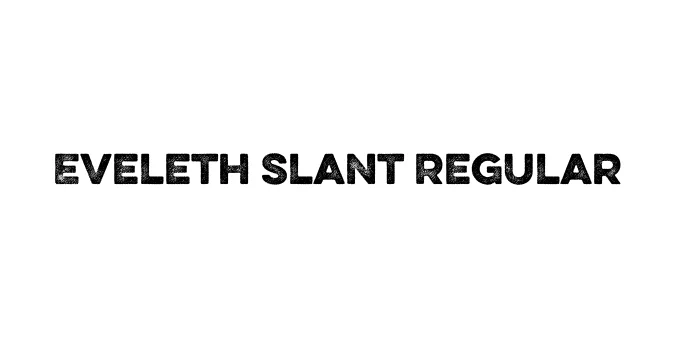
Eveleth Slant Regular
Designed by Yellow Design Studio
Eveleth Slant Regular is a premium, high-resolution letterpress font family that captures the authentic texture and grit of traditional wood-block printing. Designed by Ryan Martinson, this typeface features incredible detail and a realistic distressed appearance that sets it apart from standard digital fonts. The 'Slant' variation provides a dynamic, italicized energy to the rugged industrial aesthetic, making it ideal for projects that require a sense of movement combined with a vintage, handcrafted feel.
This font is highly versatile and meticulously crafted, ensuring that its weathered imperfections look stunning even at very large sizes. It serves as a cornerstone for designers looking to evoke nostalgia, craftsmanship, and artisanal quality. Because of its deep texture and bold character, Eveleth Slant Regular excels in high-impact environments where typography needs to carry both weight and personality, bridging the gap between retro heritage and modern graphic design.
Eveleth Slant Regular Best Uses
Perfect for creating authentic, weathered logos and identity systems for artisanal brands.
Ideal for craft beverage labels, organic food products, and rustic packaging designs.
Excellent for bold, eye-catching headlines on event flyers and vintage-style advertisements.
Highly effective for t-shirt graphics and streetwear branding that requires an industrial edge.